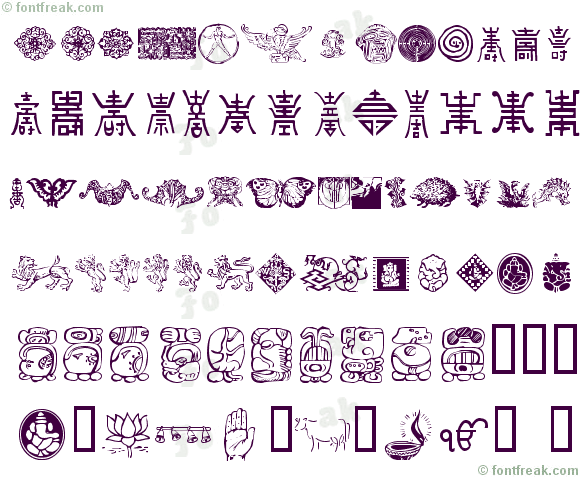
Cultural Icons
About Cultural Icons
Cultural Icons by Omega Font Labs is a unique decorative typeface that embodies the essence of cultural motifs and symbols. This font, released as freeware in 1998, features a collection of intricate icons that serve as a visual representation of diverse cultural elements. The design of Cultural Icons is characterized by its distinctive line work and ornamental details, which showcase a mix of bold and delicate strokes. The icons are thoughtfully crafted, allowing for a harmonious balance between complexity and clarity, making them suitable for various applications.
The Cultural Icons font is ideal for a range of creative projects. Designers can utilize this font for wedding invitations, where the intricate symbols can add unique flair to the overall design. Additionally, movie posters can benefit from the bold imagery that evokes cultural narratives, enhancing the visual storytelling aspect. Restaurant menus looking to highlight ethnic cuisine can incorporate these icons to create an inviting and thematic atmosphere. Furthermore, cultural festivals and events can use this font to produce eye-catching promotional materials that resonate with audiences.
What sets the Cultural Icons font apart is its ability to convey rich cultural narratives through simple yet impactful visual elements. This font not only enhances the aesthetics of any project but also invites viewers to engage with the stories behind each icon. For those looking for a distinctive touch, the Cultural Icons font free download offers a valuable resource for creative expression.